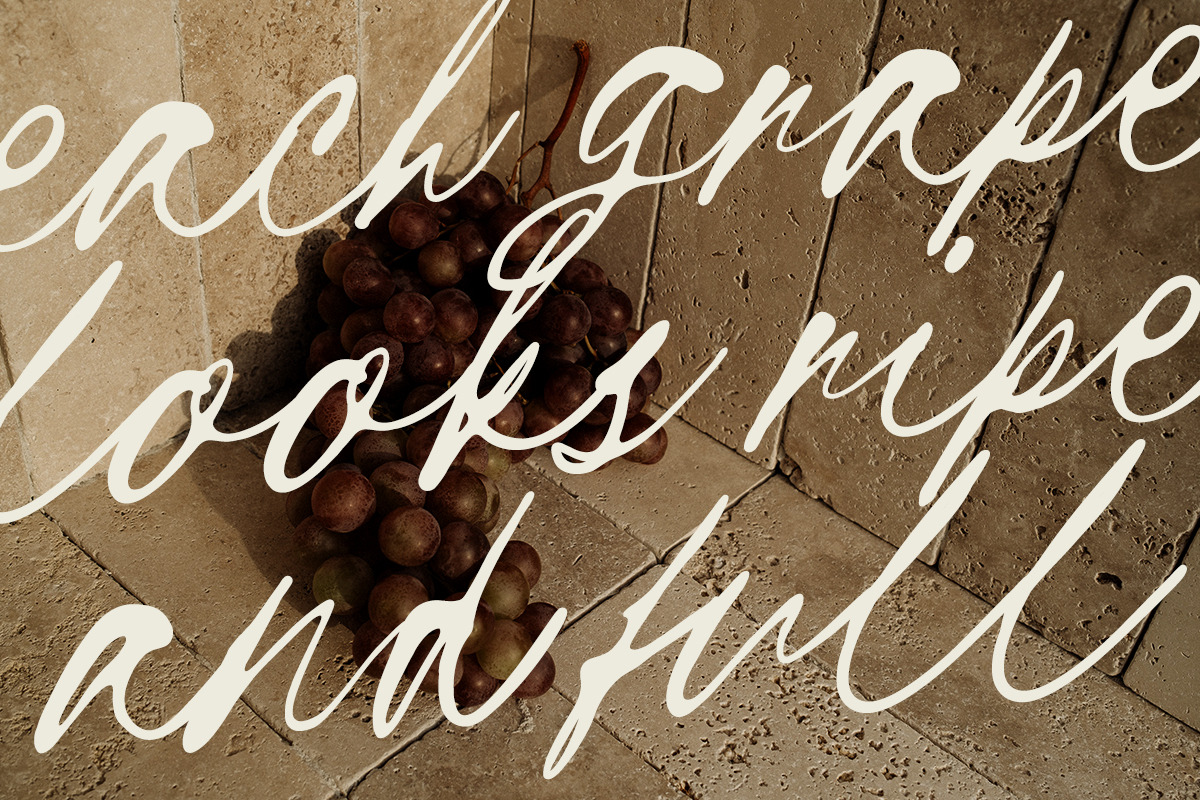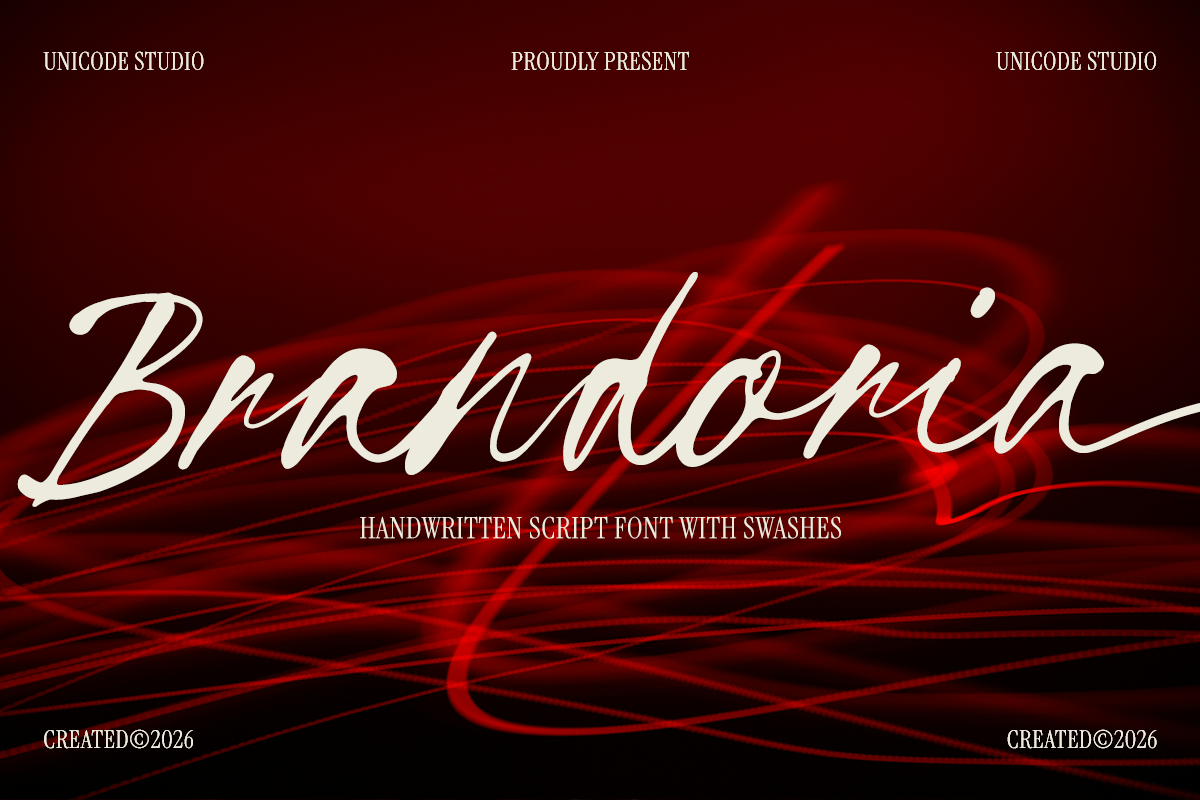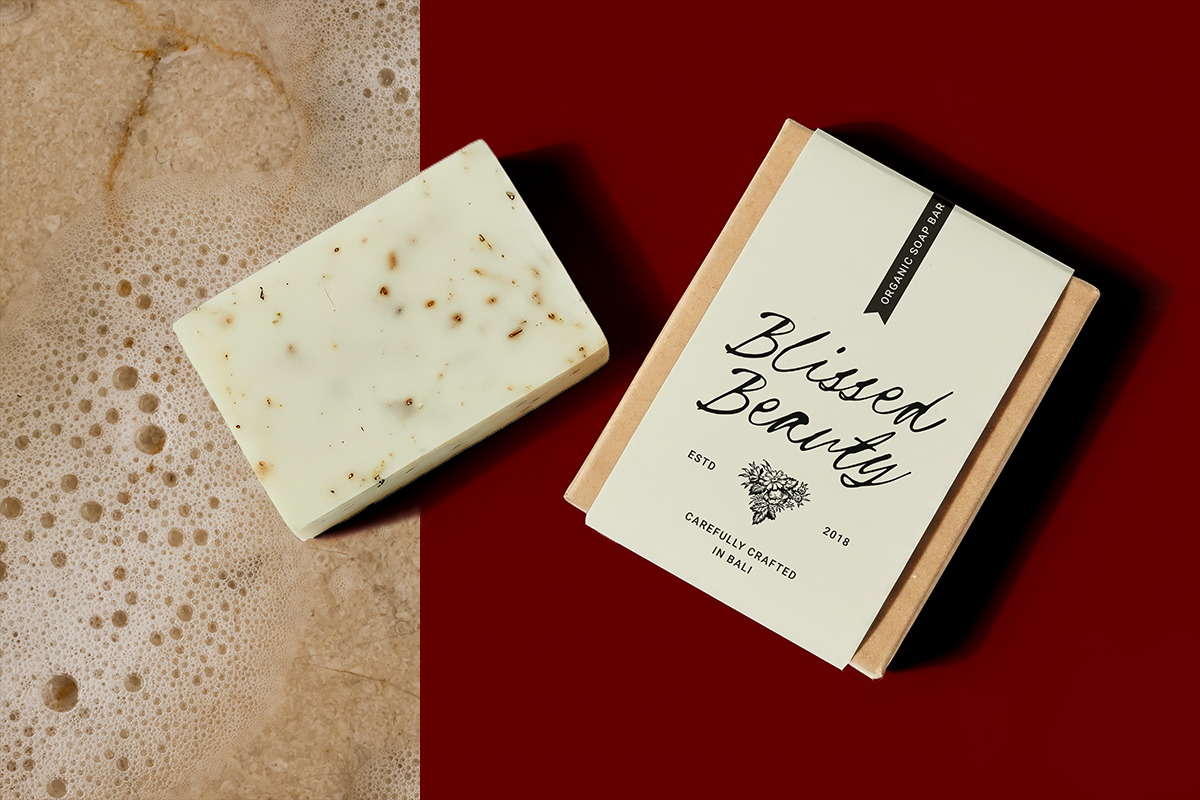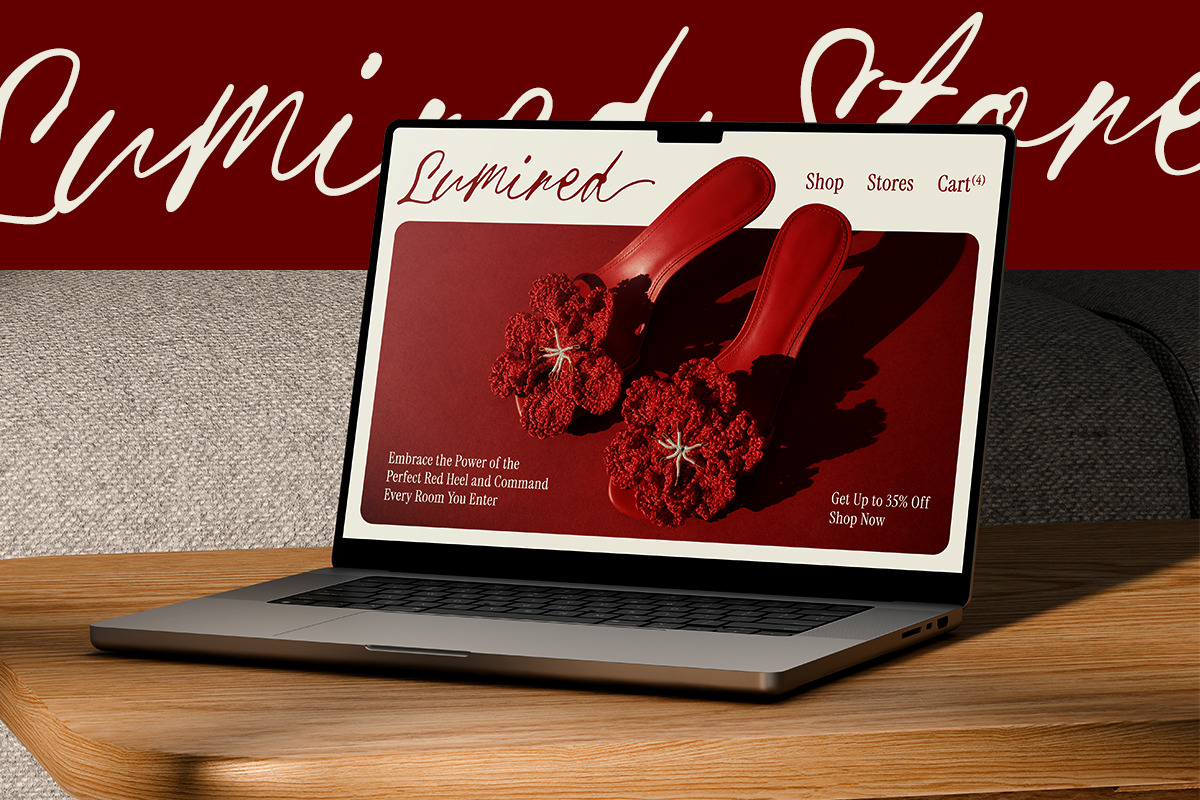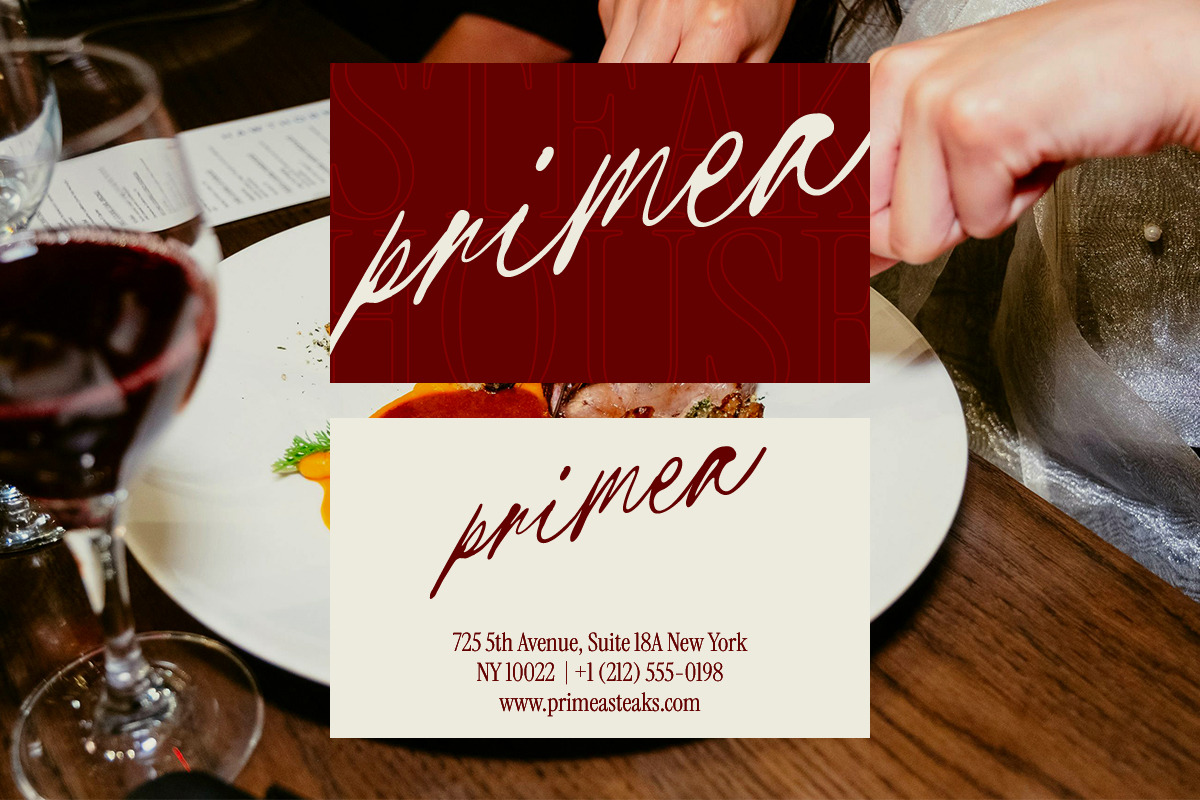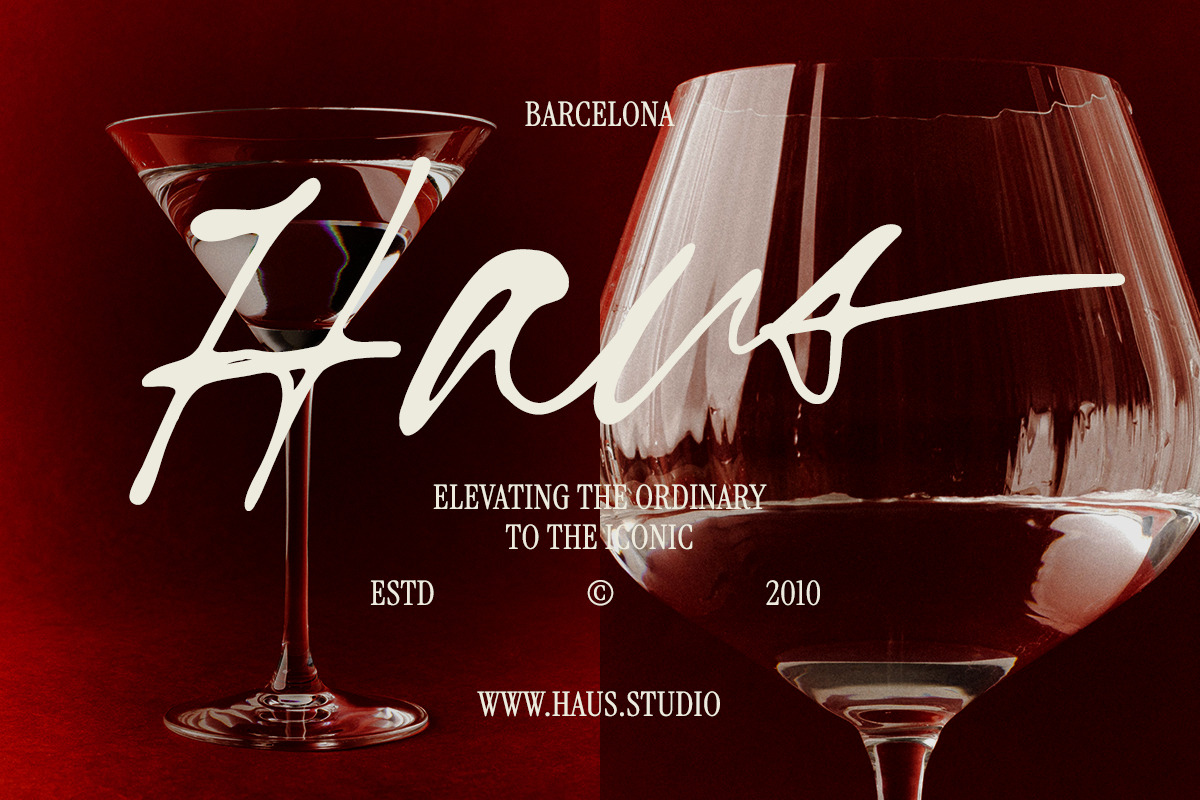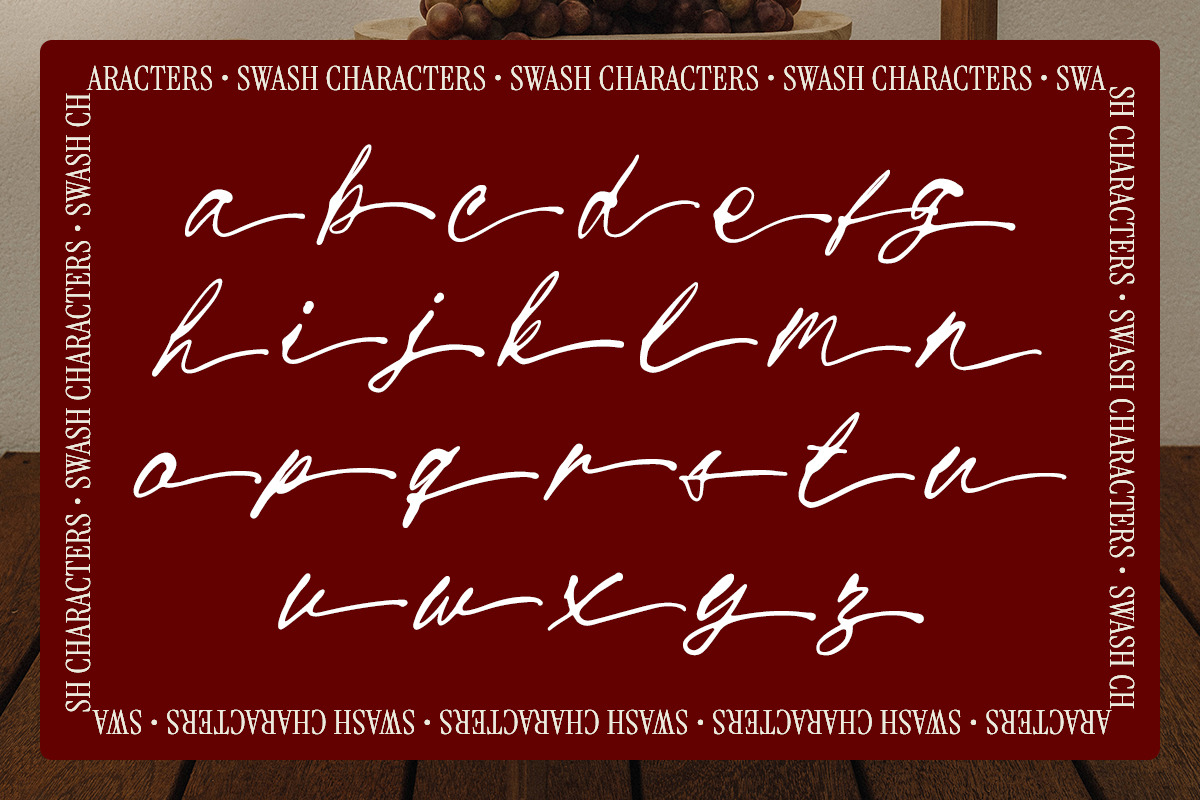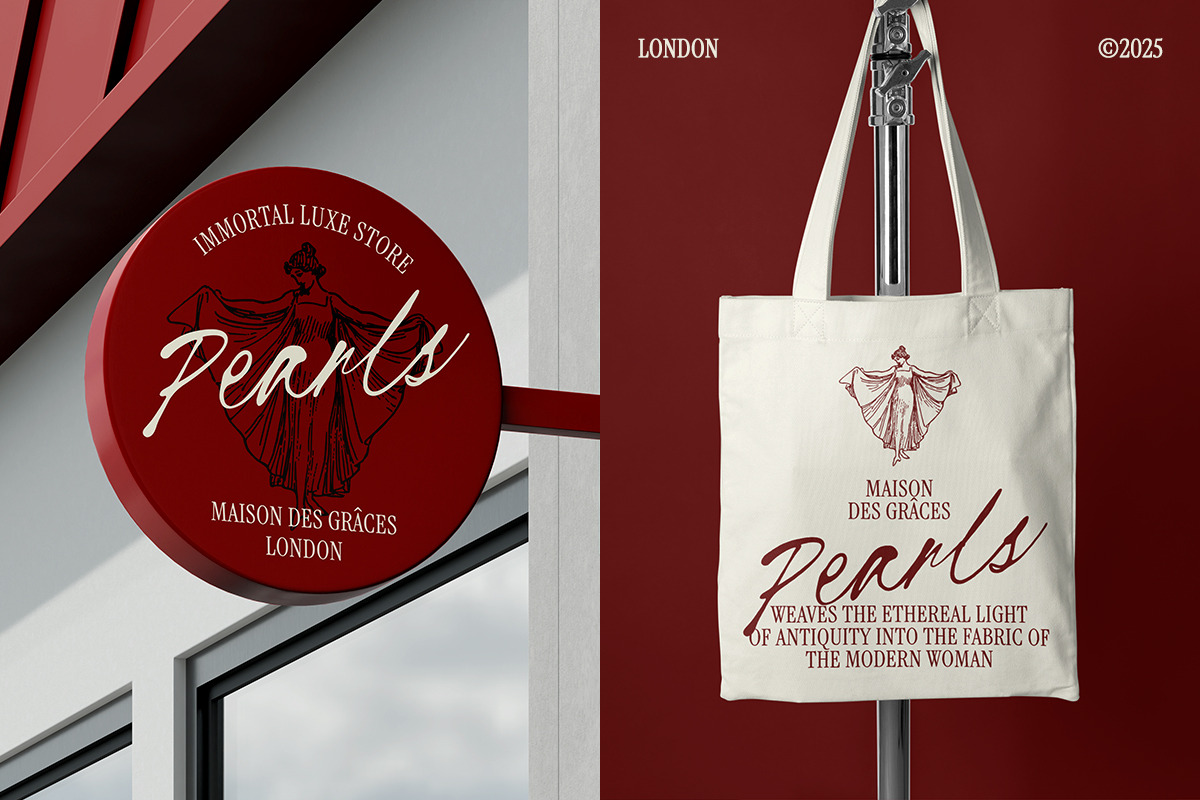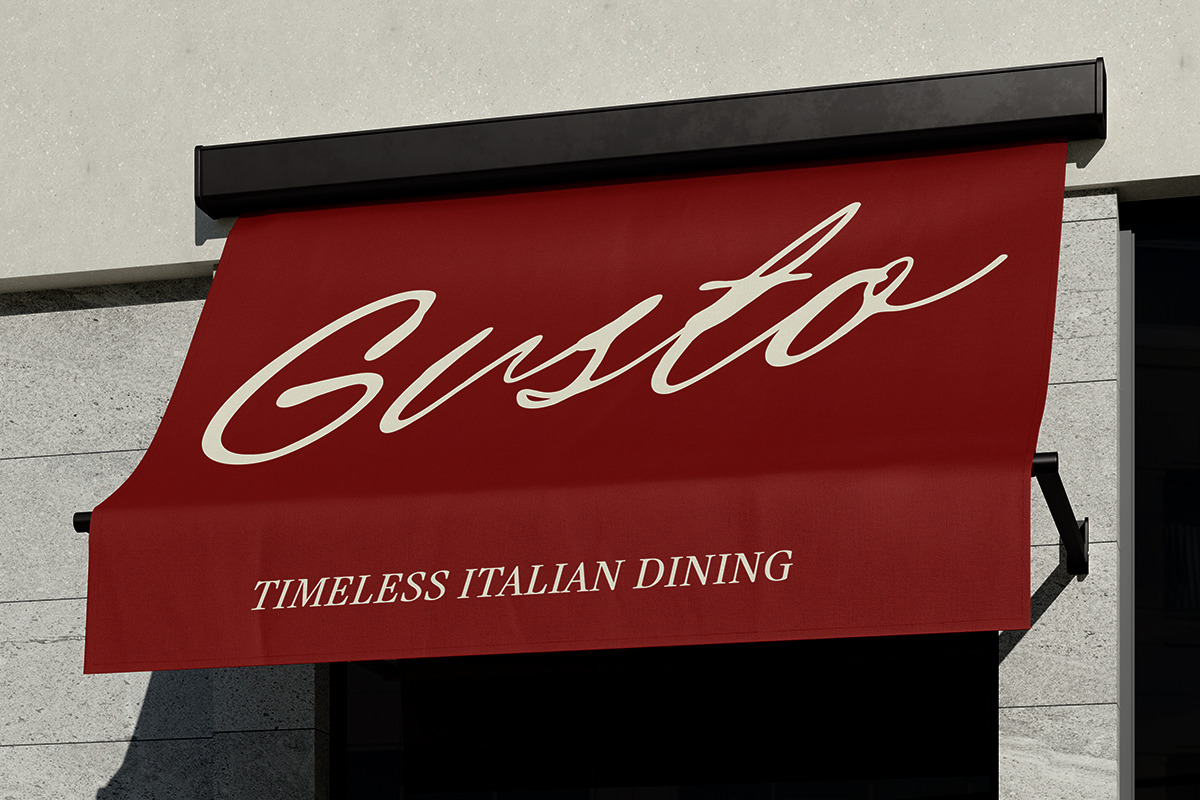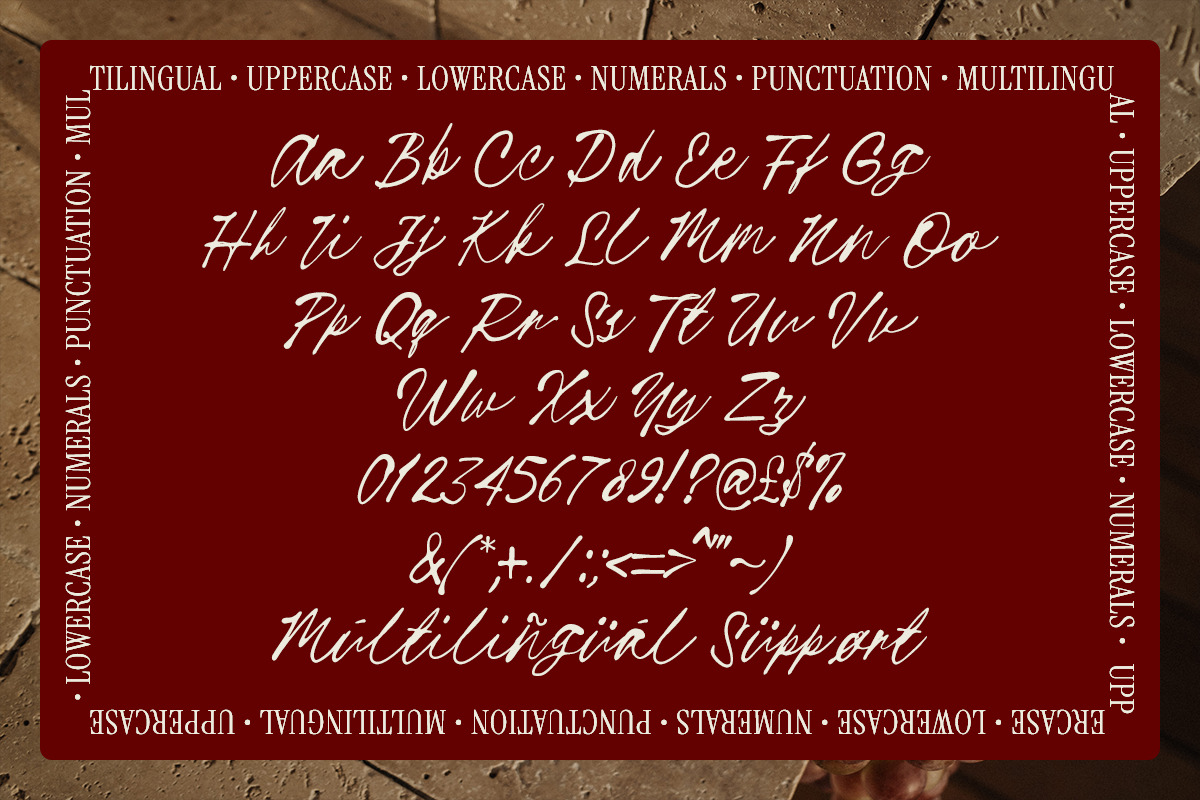
Brandoria – Handwritten Script Font
Brandoria – Elegant Handwritten Script Font
Brandoria is an elegant handwritten script font designed to bring a touch of luxury, sophistication, and authenticity to your creative projects. Featuring smooth flowing strokes, stylish swashes, and natural signature-style lettering, Brandoria is perfect for branding, logos, wedding invitations, social media content, packaging, fashion designs, and premium marketing materials.
Carefully crafted with a modern calligraphy feel, Brandoria combines beauty and readability, making it suitable for both professional and personal projects. Whether you're creating a luxury brand identity, elegant wedding stationery, or eye-catching social media graphics, Brandoria adds a refined and timeless aesthetic to every design.
Uppercase & Lowercase Characters
Elegant Beginning & Ending Swashes
Smooth Handwritten Style
Perfect for Branding & Logo Design
Bring elegance and personality to your designs with Brandoria, a stylish signature script font crafted for modern creators.